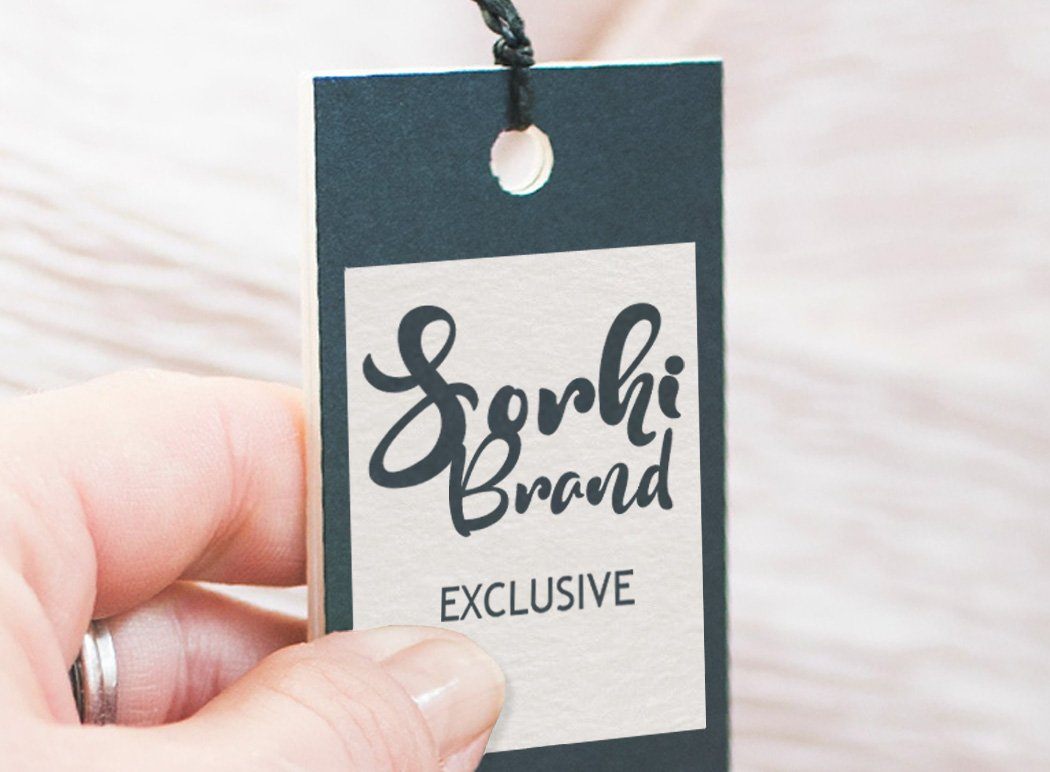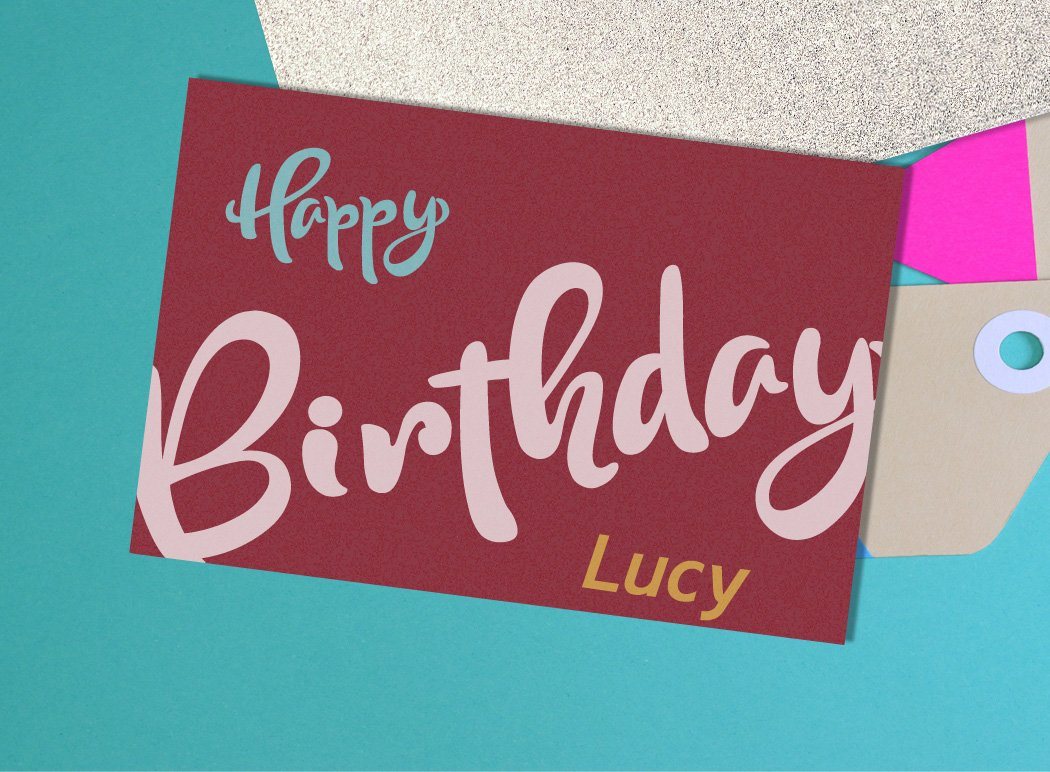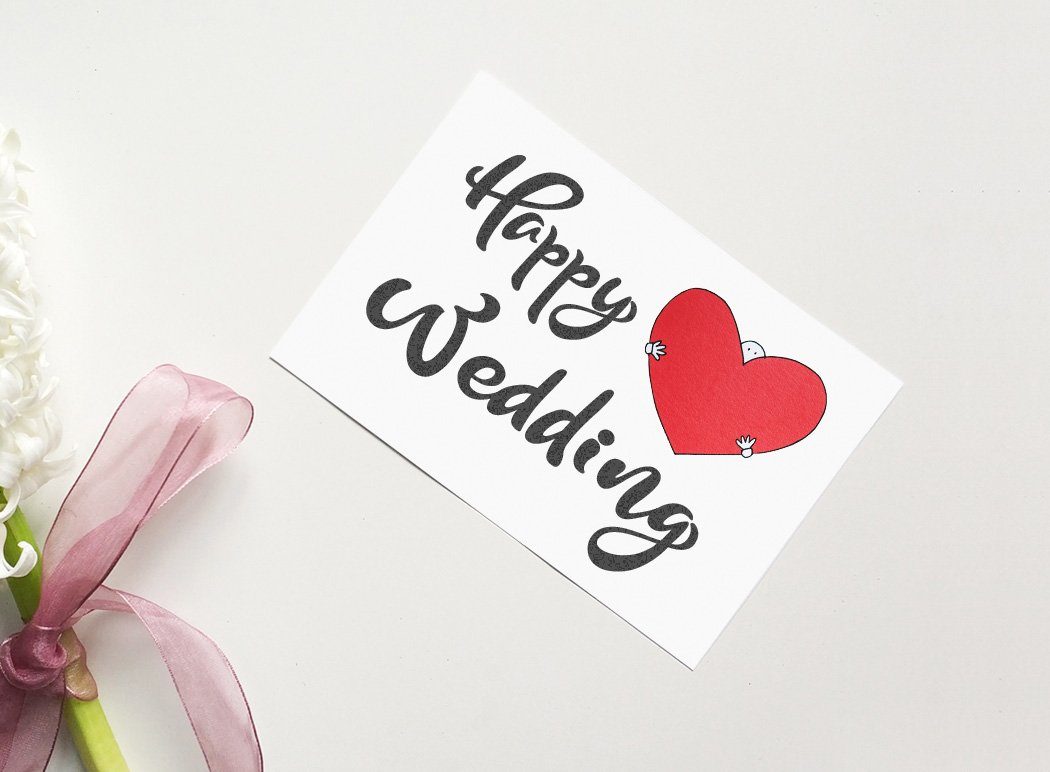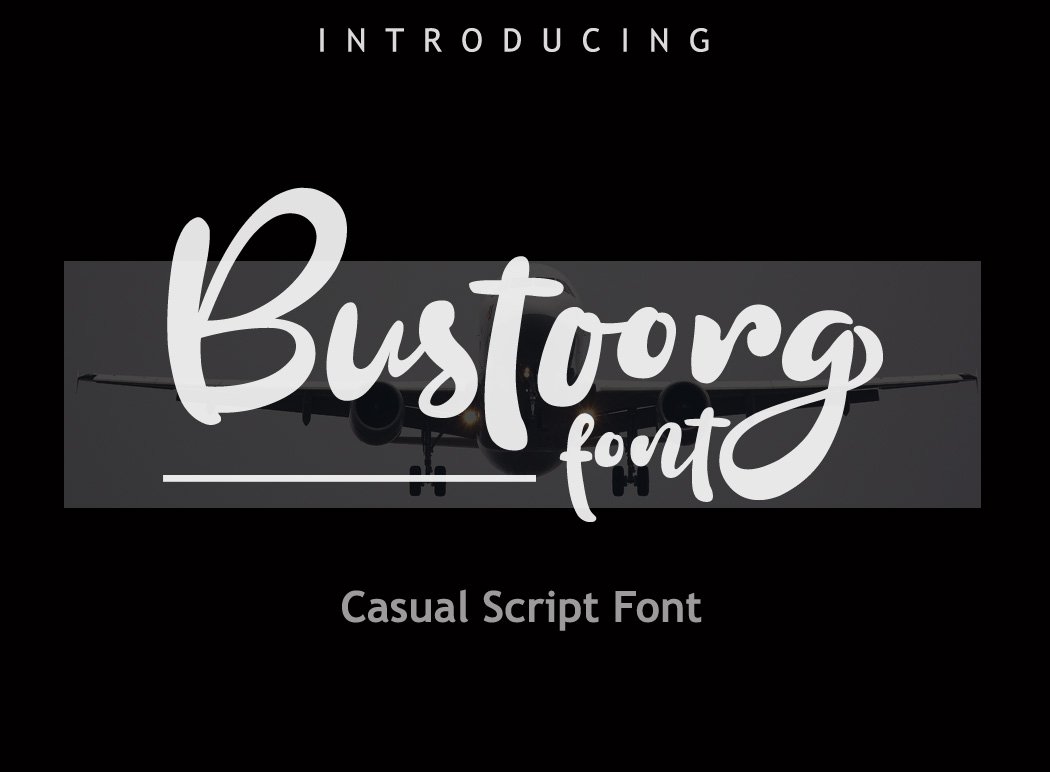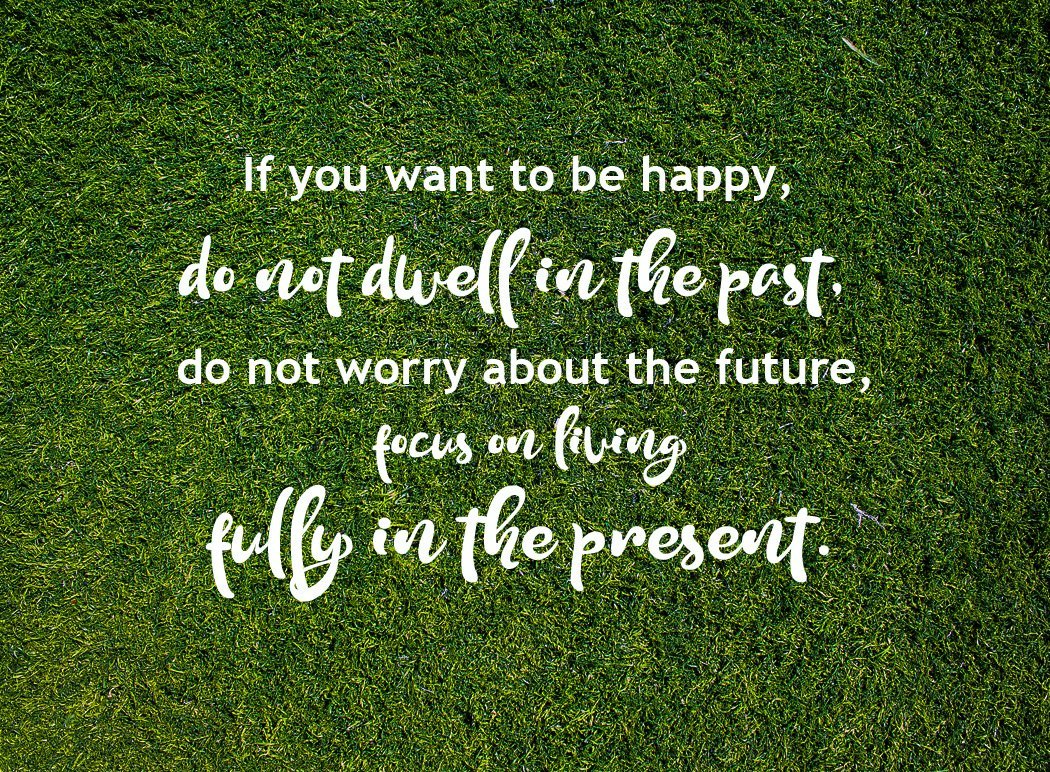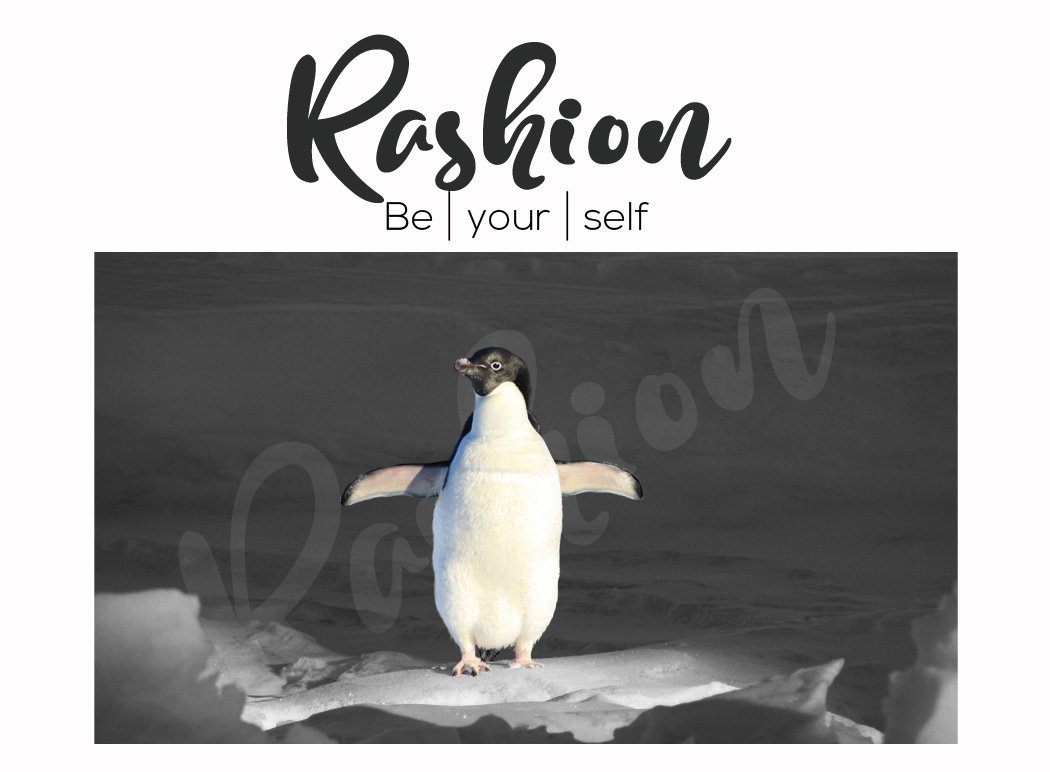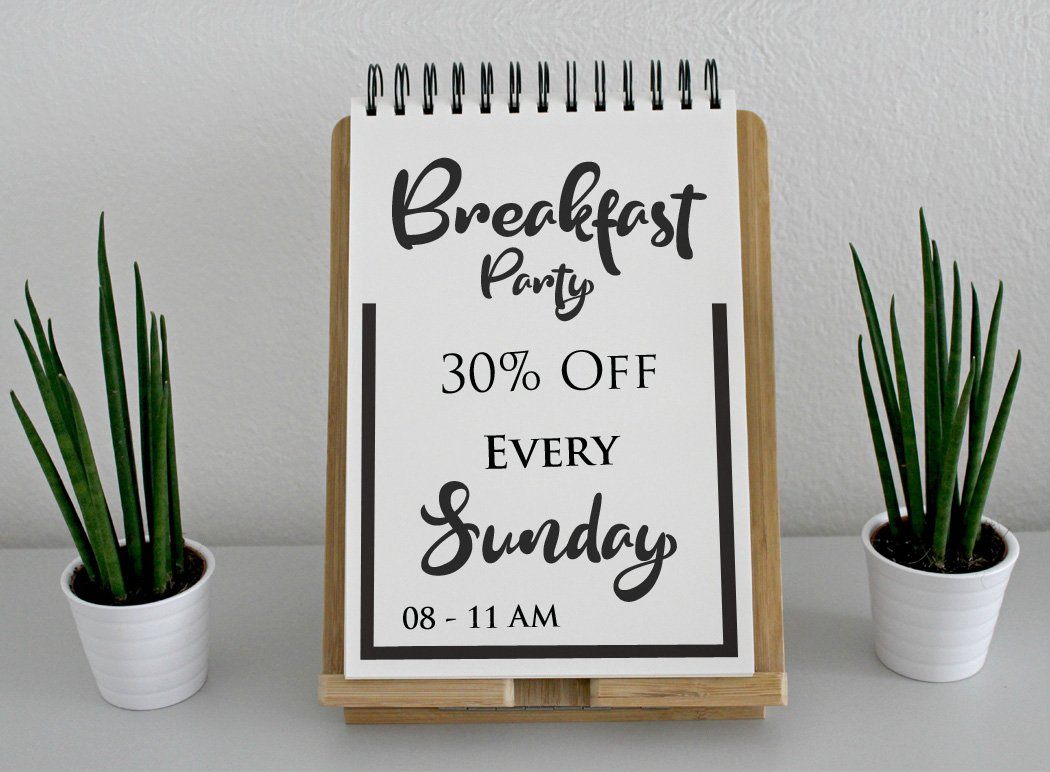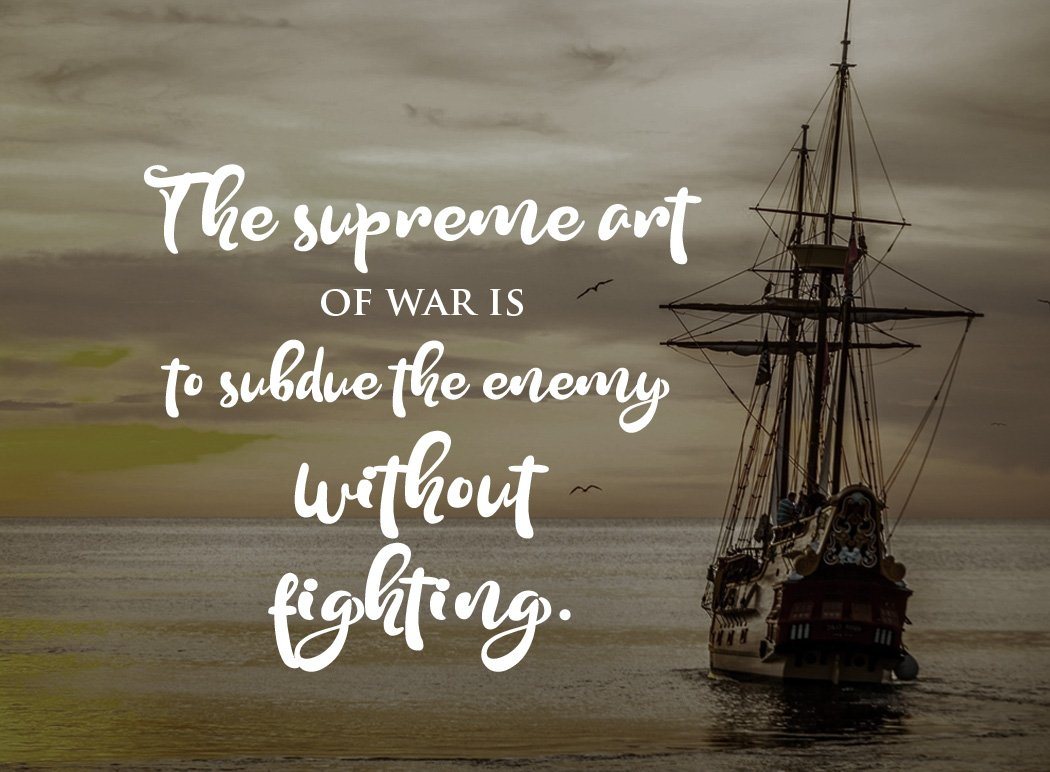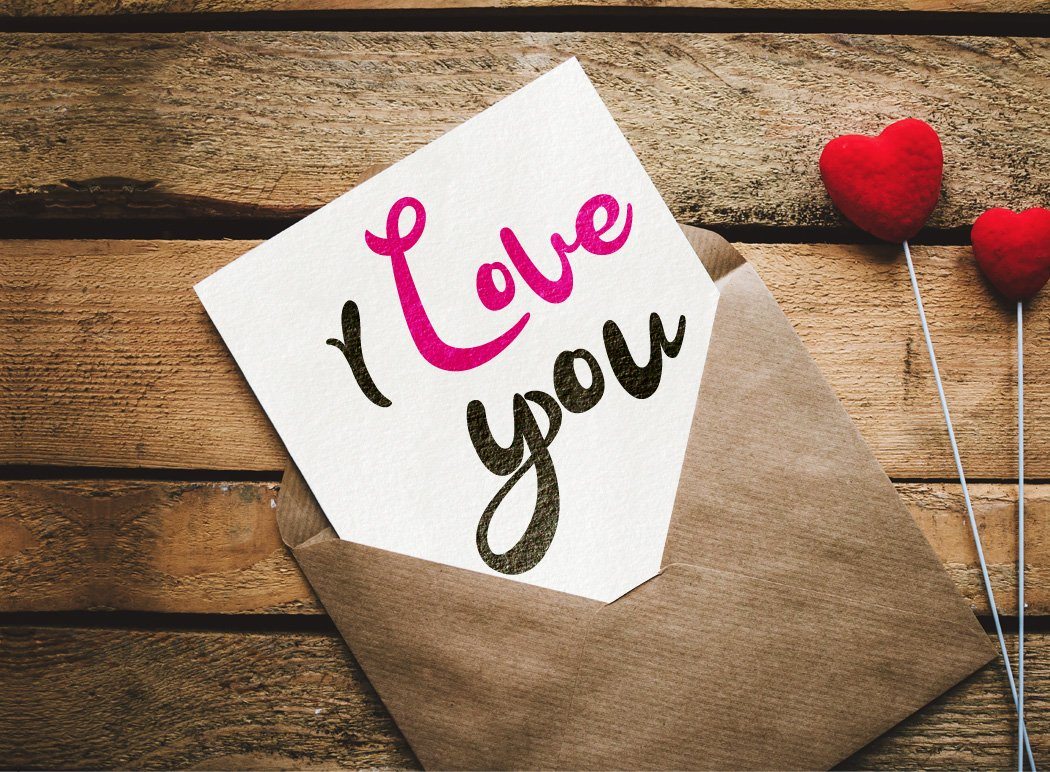
Bustoorg Font
About Bustoorg Font
Bustoorg Font Bustoorg is a casual display script font with bold and artistic shape characters. Bustoorg is great for your both vintage and modern themed designs. You can use it as a logo, quote, badge, insignia, packaging, headline, poster, t-shirt/apparel, greeting card, and wedding invitation, etc. Features : Available in single OTF ,TTF and WOFF files Uppercase A-Z Lowercase a-z Numbers 0-9 Accents Punctuation Custom ligatures PUA Encoded Multilingual support Support for Windows, Mac and Linux OS HOW TO ACCESS OPENTYPE FEATURES You need a program that supports OpenType features like Adobe Illustrator CS, Adobe Indesign & CorelDraw X6-X7, Microsoft Word 2010 or later to enable OpenType features. Make sure the opentype features is activated. For the programs that do not support OpenType features you can use Character map application (windows) / Font Book application (Mac), choose the font and then copy-paste characters you from them to your project page (such as photoshop page etc) If you have any questions regarding this product kindly leave your message through the contact form or contact us at . Enjoy the font!! Thank you.. Don’t forget to visit our shop and check our products click here